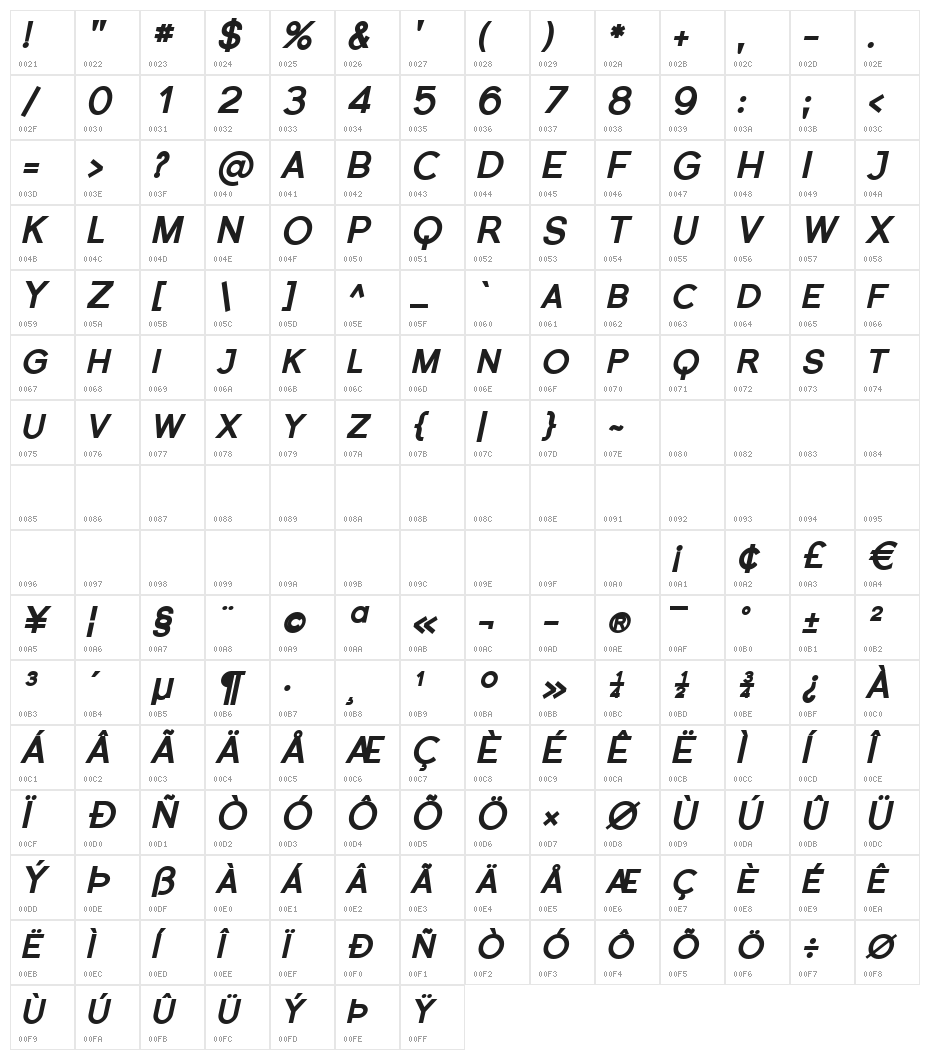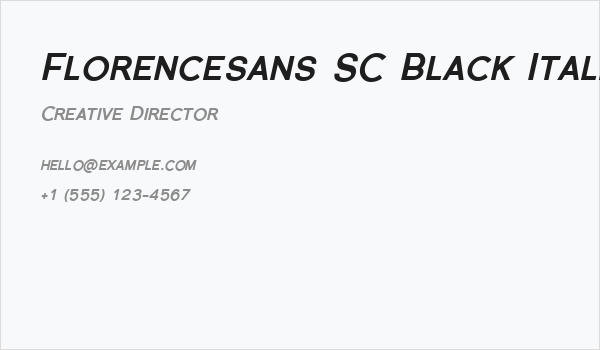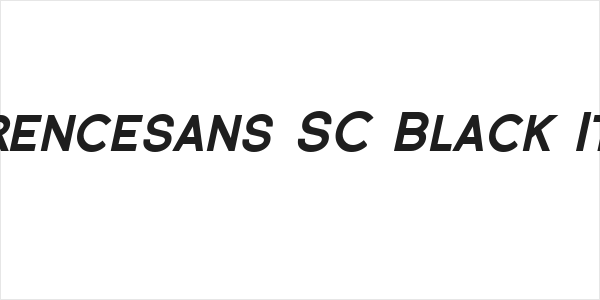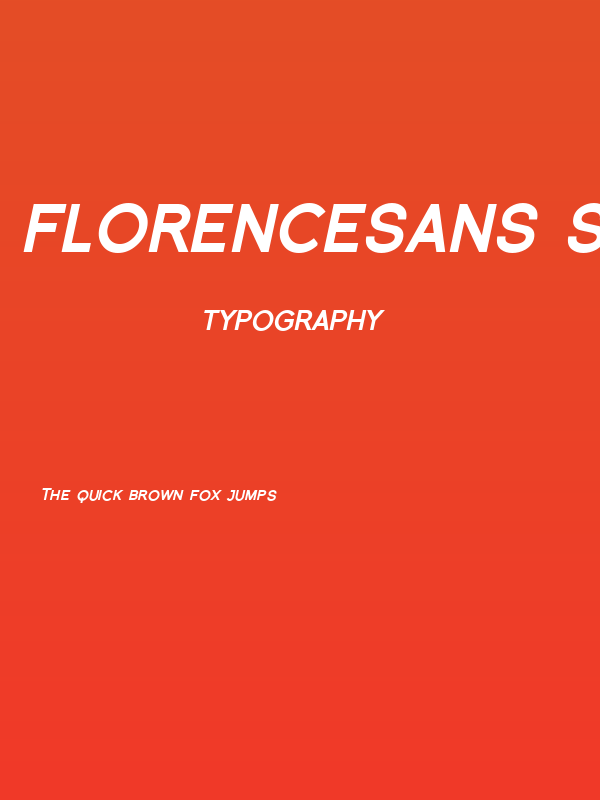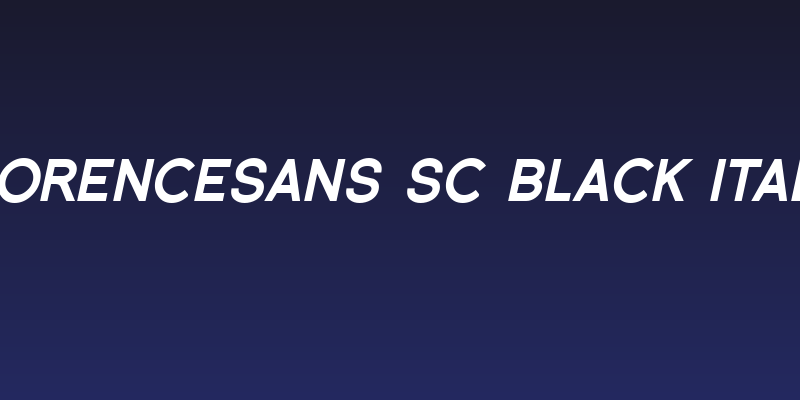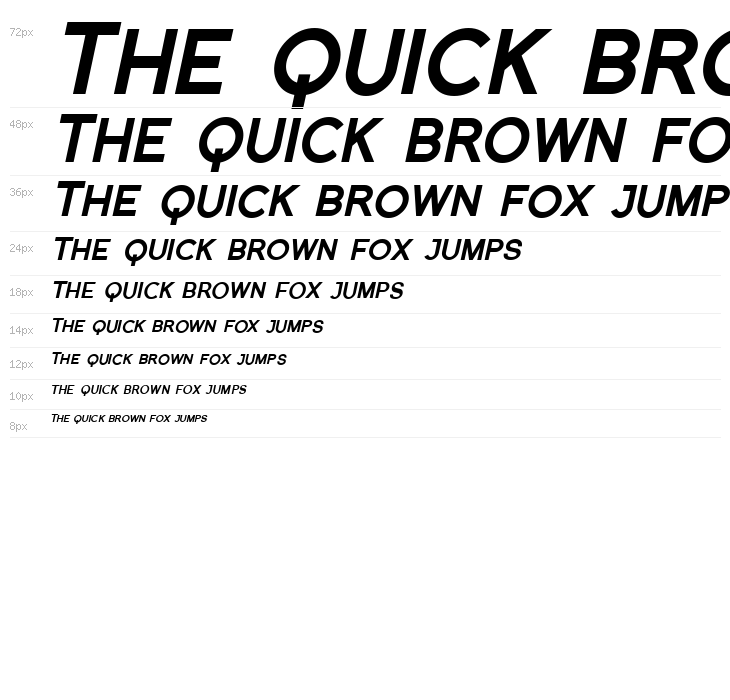
Florencesans SC Black Italic Font
Florencesans SC Black Italic Description
This font exhibits a bold and dynamic presence with its italicized form, offering a modern and sleek aesthetic. The characters are well-defined with a consistent stroke weight, providing a strong visual impact. The slanted design adds a sense of motion and energy, making it suitable for attention-grabbing applications. The uppercase and lowercase letters maintain a uniform style, ensuring readability while conveying a contemporary feel. The numerals and special characters are crafted to match the overall design, enhancing the font's versatility.
Use CaseHeadlines, Logos, Branding
Proposed ProjectsIdeal for branding, advertising, headlines, and any project requiring a bold, modern look.